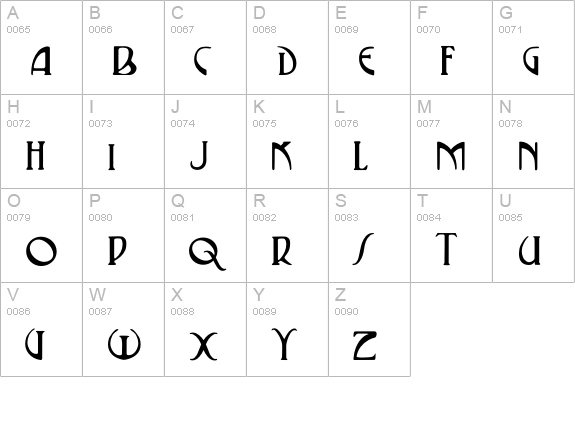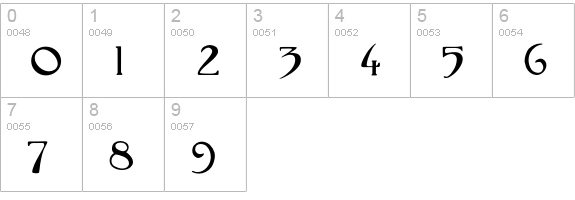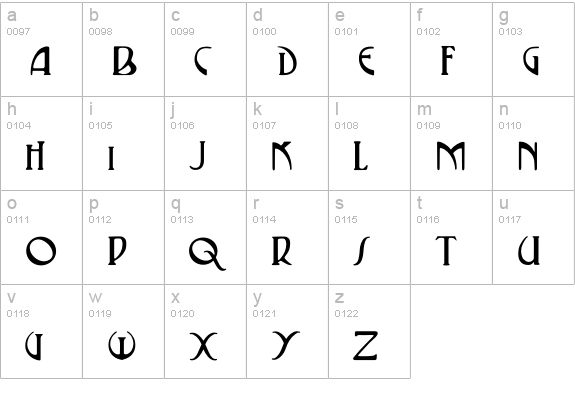
ViennaRegular Font Details
ViennaRegular is a stylish and versatile font that exudes elegance and sophistication. Its clean lines and balanced proportions make it the perfect choice for a wide range of design projects, from logos and branding to editorial layouts and web designs. With its timeless appeal, ViennaRegular adds a touch of class to any design. Its consistent letterforms and smooth curves create a harmonious and pleasing visual experience. Whether used in headlines, subheadings, or body text, this font ensures readability while maintaining a sense of uniqueness. One of the best things about ViennaRegular is that it is free! Yes, you read that right. This incredible font is available for free download at FontsMarket.com. Now, you can enjoy the beauty and versatility of ViennaRegular in your designs without spending a dime. Designed with attention to detail, ViennaRegular offers a wide range of glyphs and characters, including numerals, punctuation marks, and special symbols. This makes it suitable for multilingual projects and ensures that your message is conveyed accurately and beautifully, no matter the language. Whether you're a professional designer or a hobbyist, ViennaRegular is a must-have font in your collection. Its timeless elegance, versatility, and free availability make it a valuable asset for any design project. So why wait? Visit FontsMarket.com today and download ViennaRegular to elevate your designs to the next level.